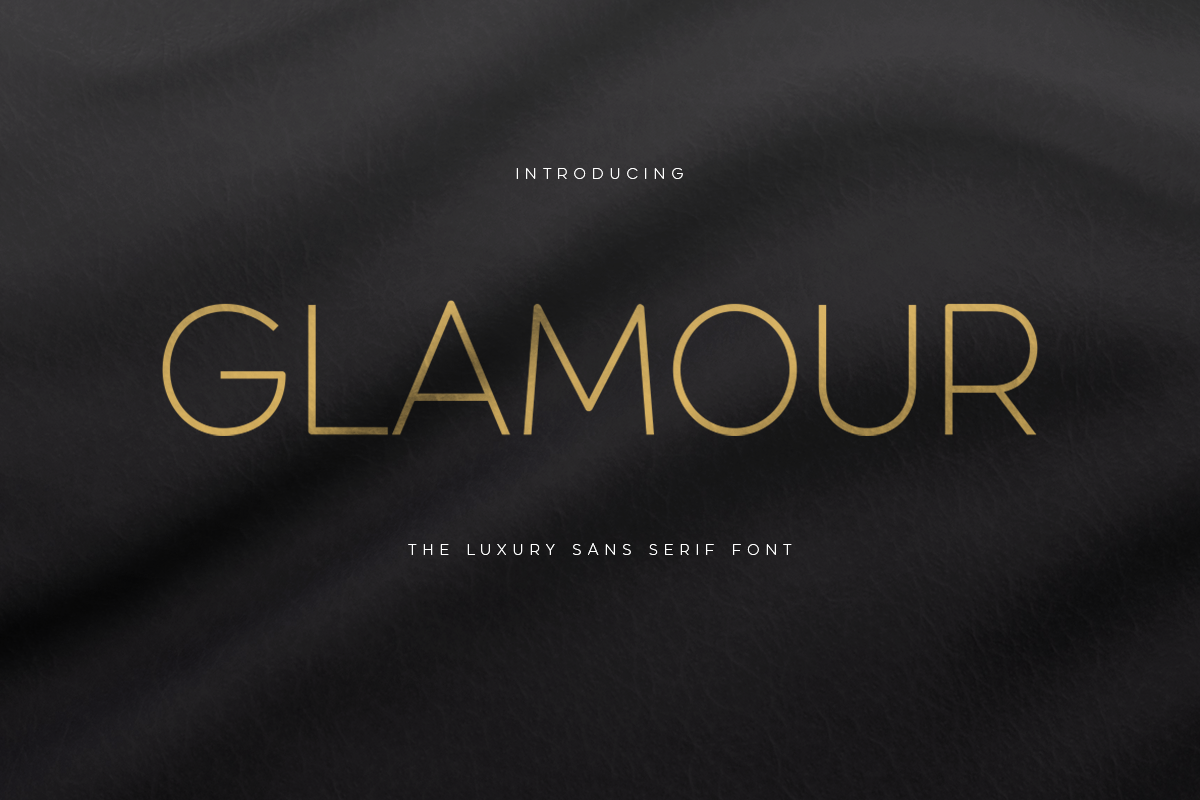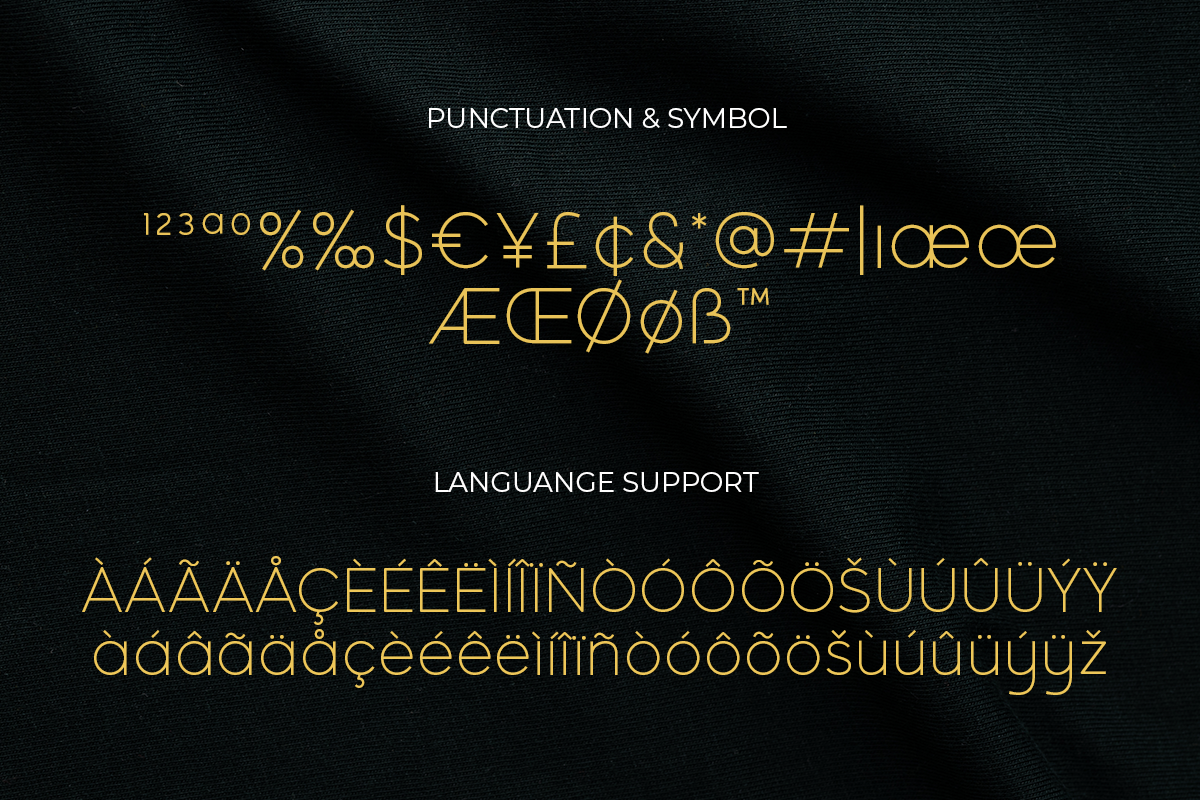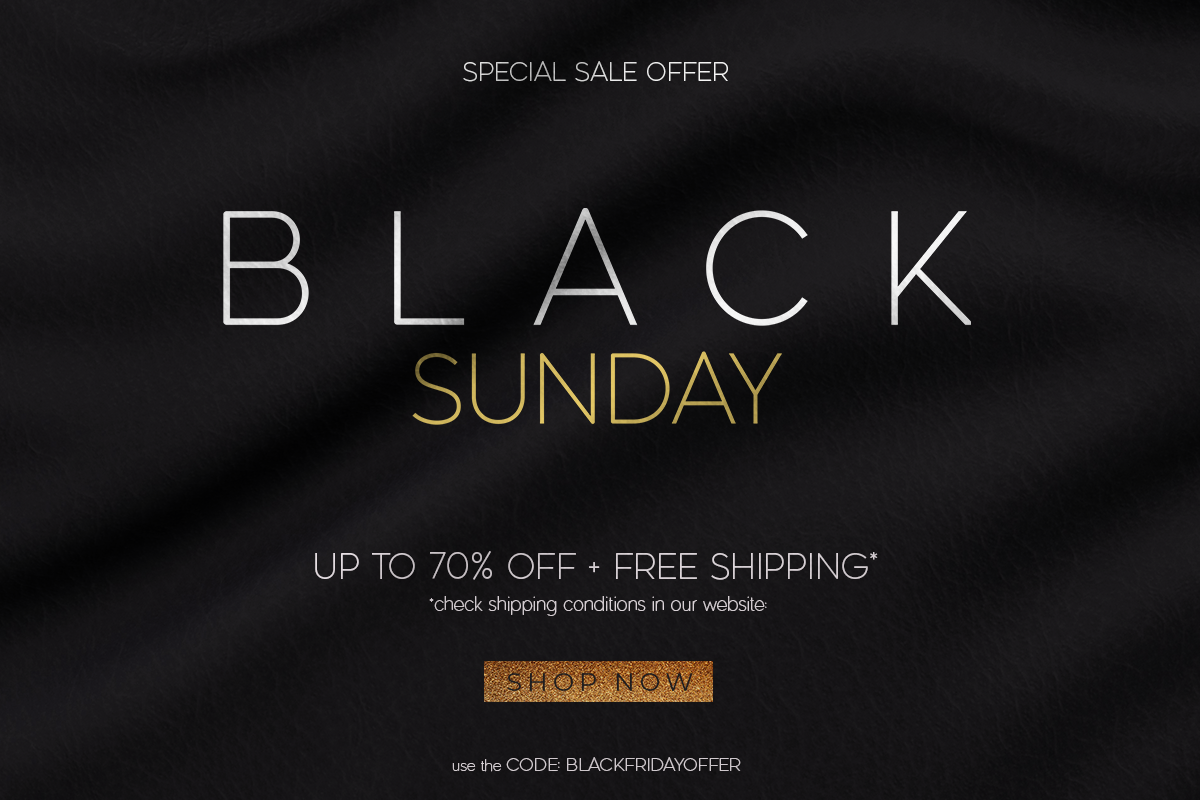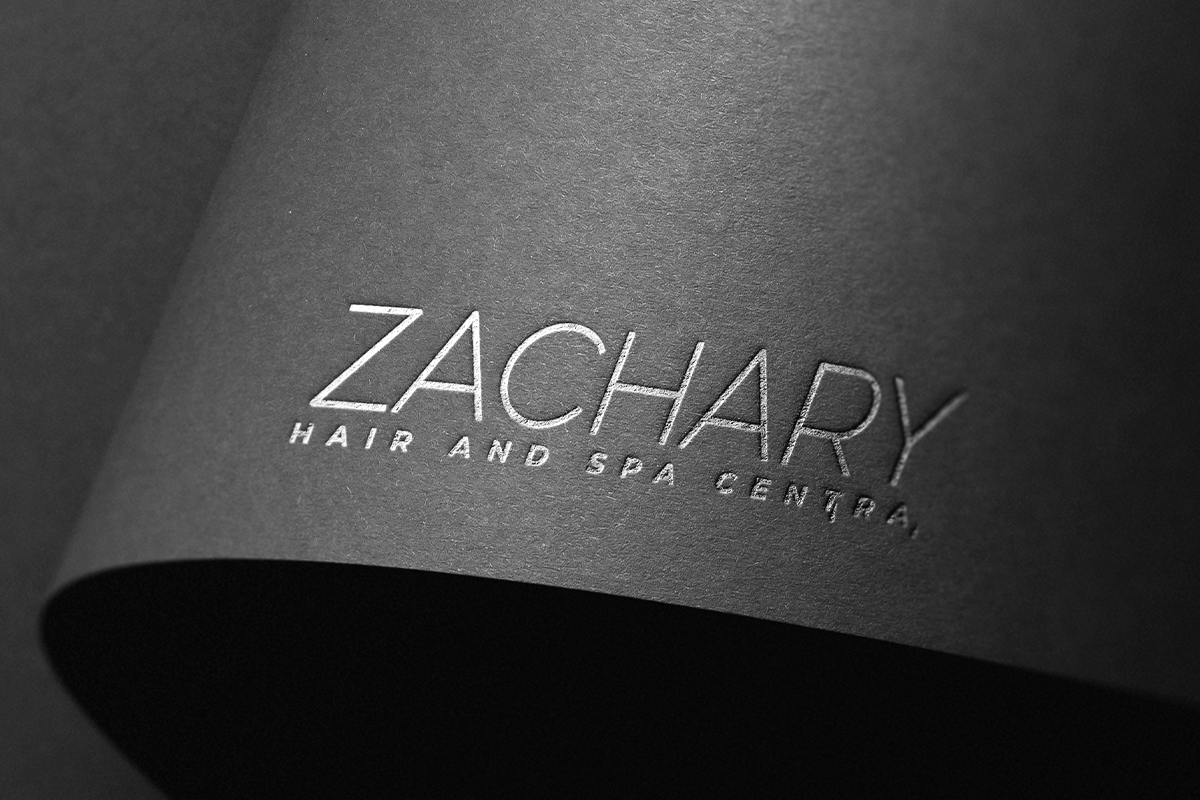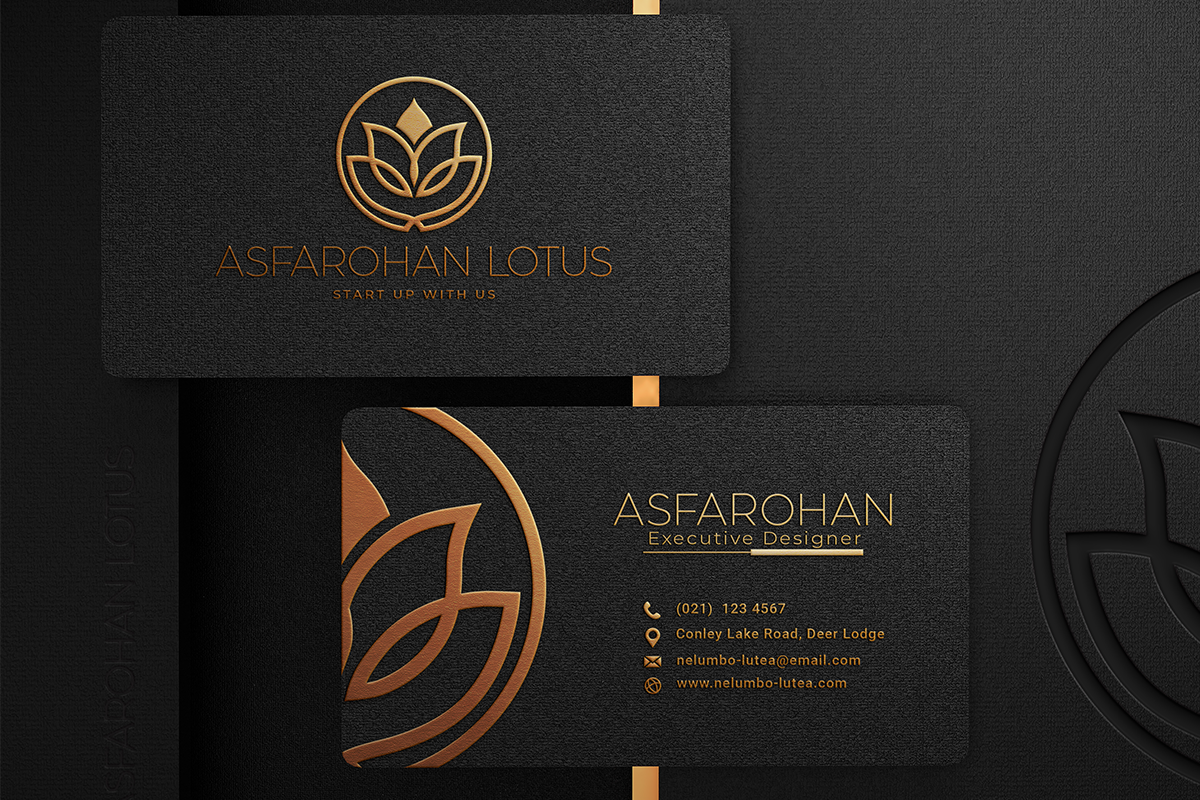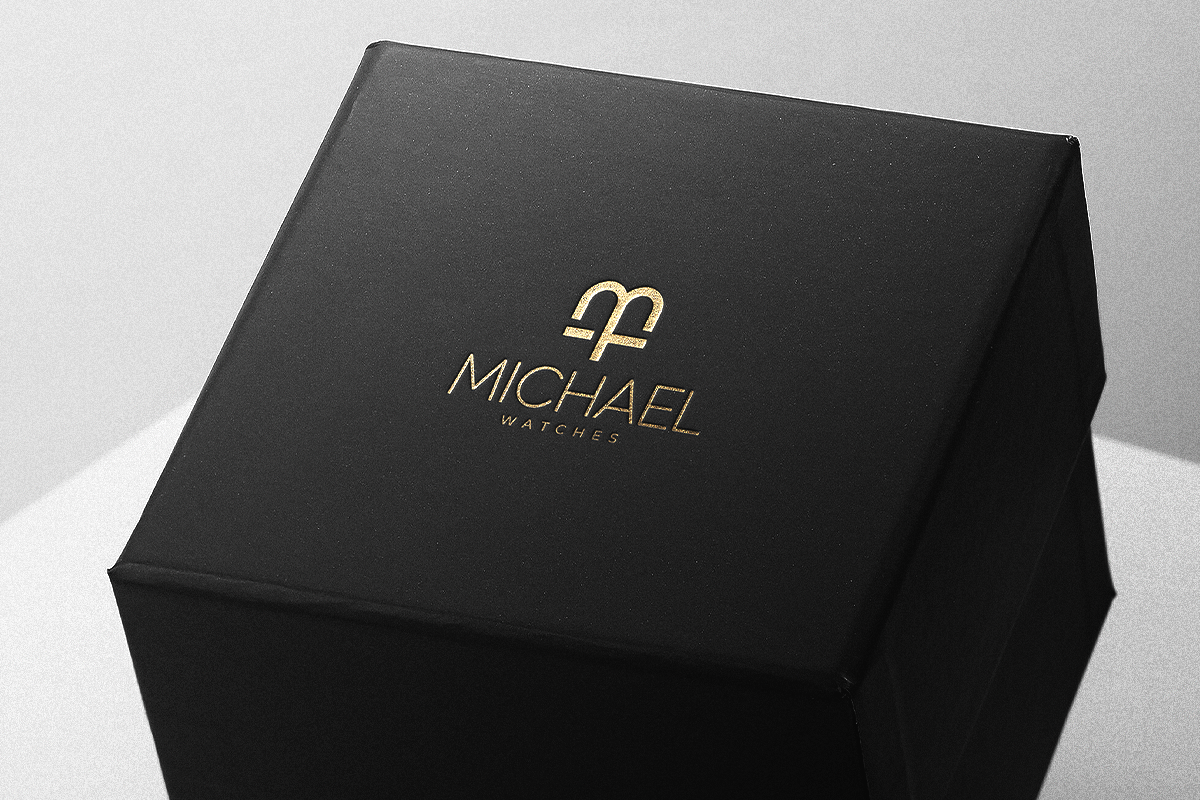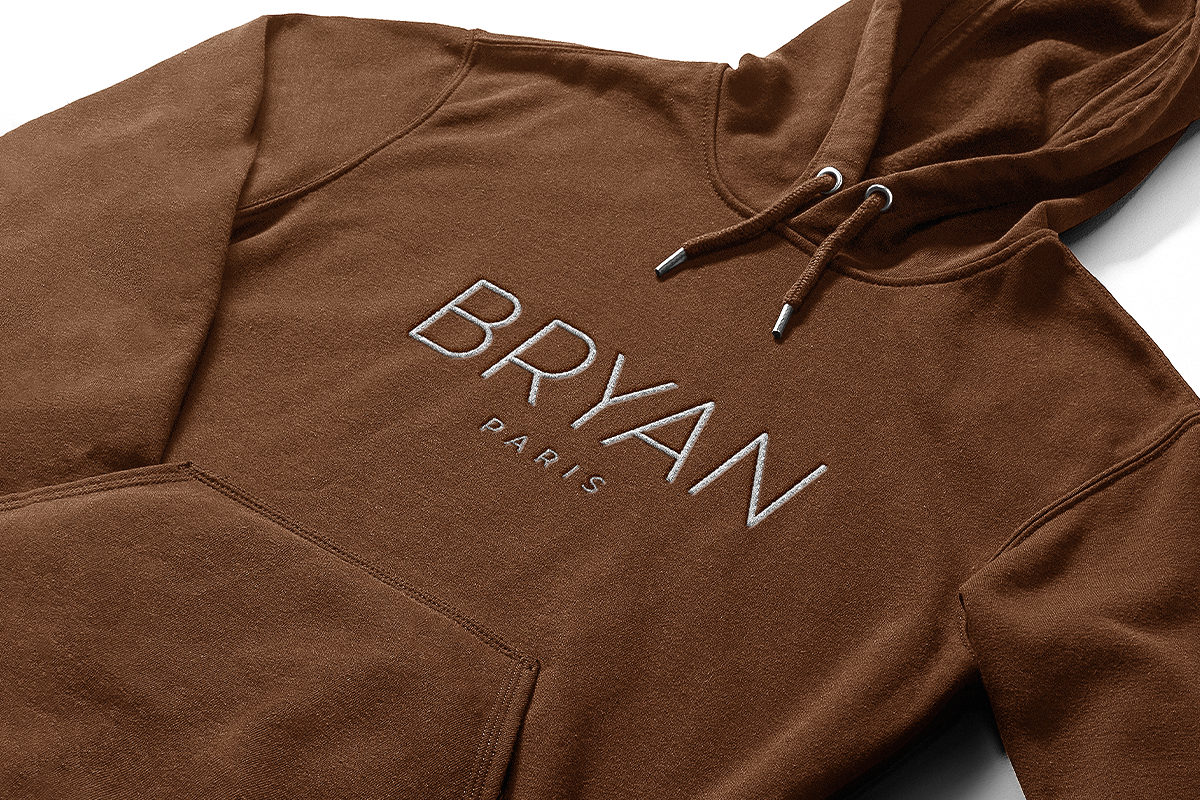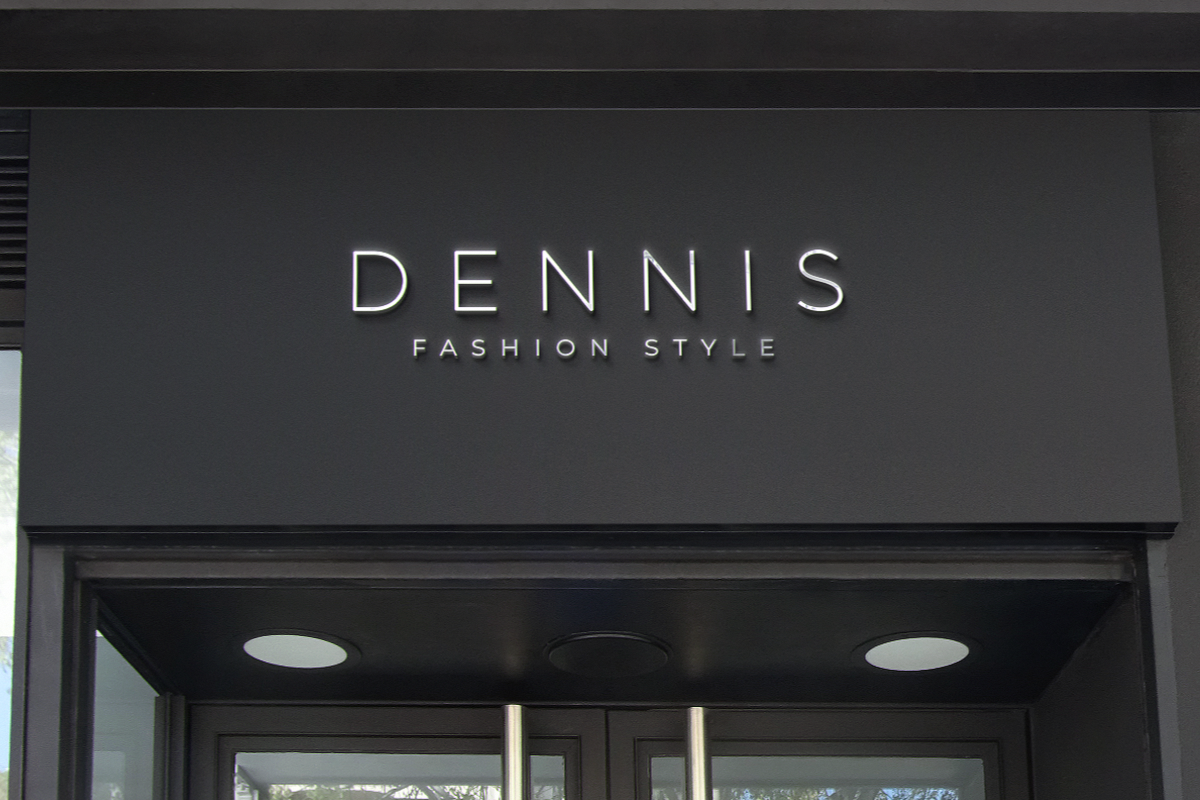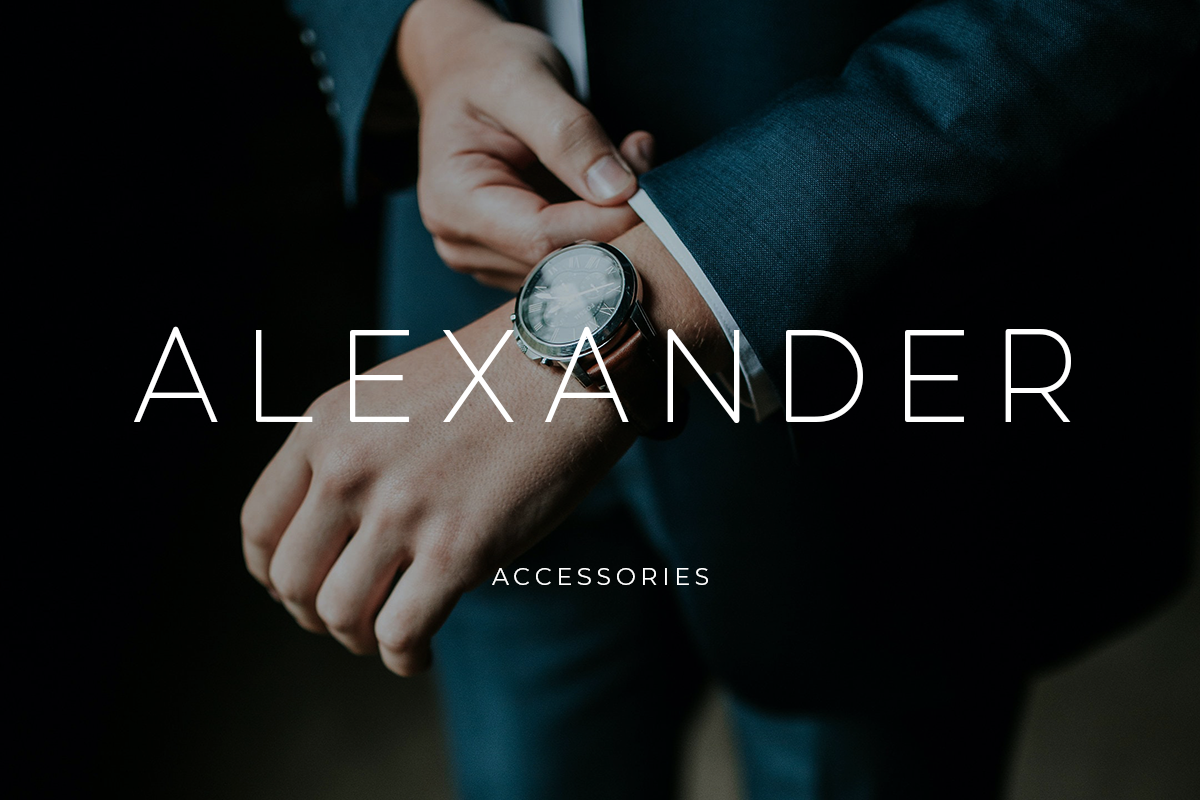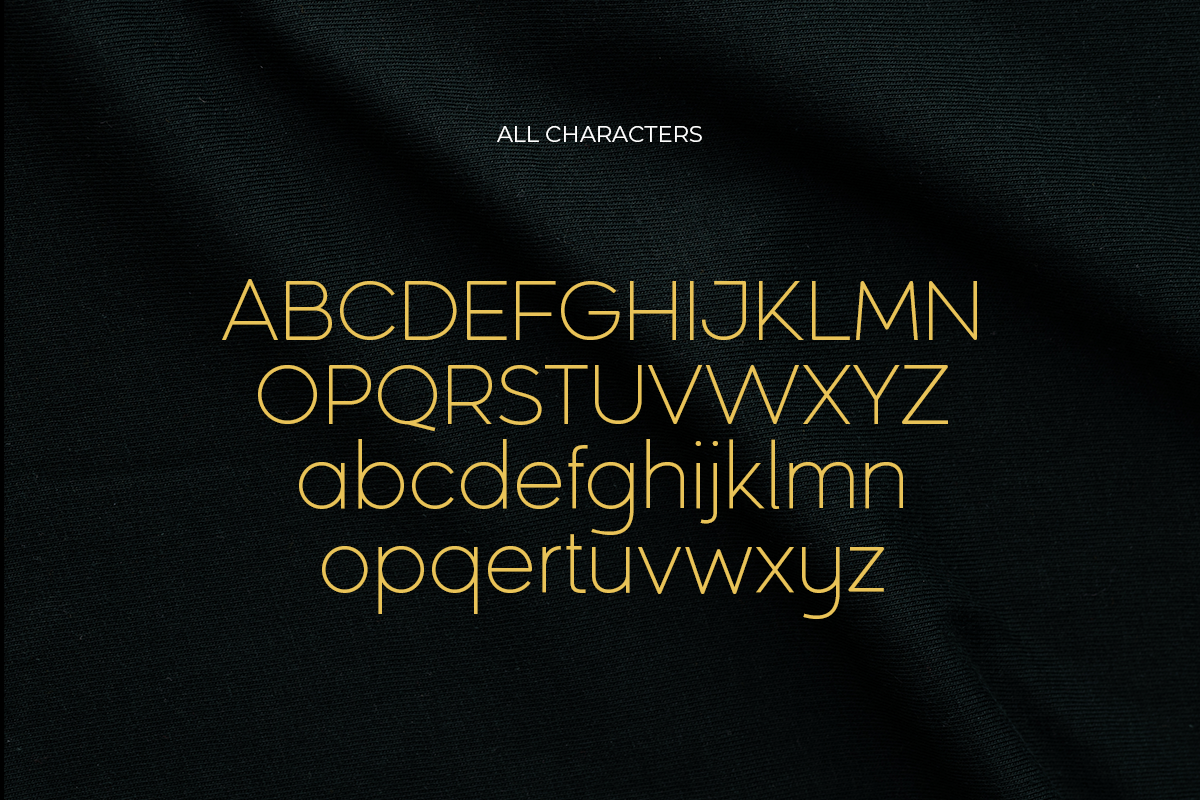
Glamour is a sans serif font with luxury, elegant, modern, unique and classy-look. This font crafted specials for luxury-themed projects, ready to use on Magazine, Social Media, Branding, Logo, and Many more that needs Luxury touches.
Glamour is also included full set of:
• uppercase and lowercase letters
• multilingual characters
• numerals
• punctuation